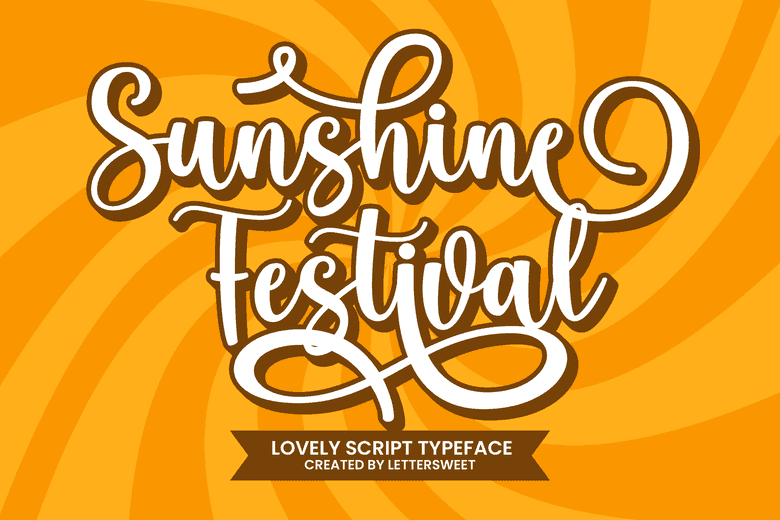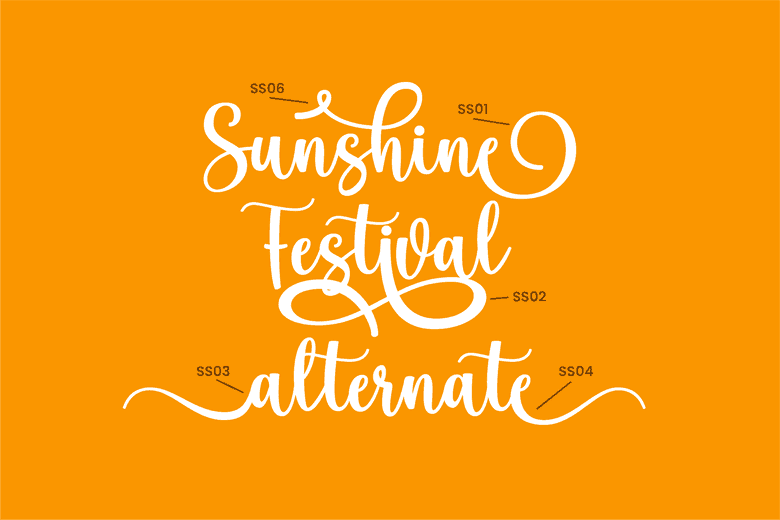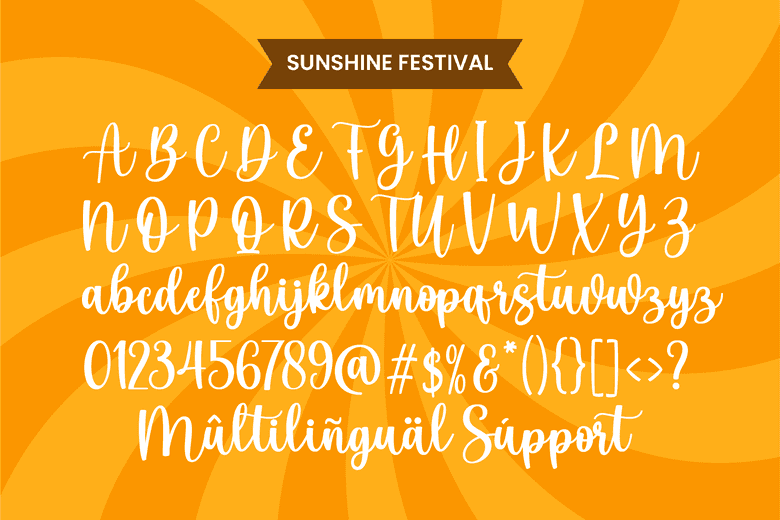
Sunshine Festival is an exquisite, romantic script font with calligraphic elements that makes for stunning invitations, thank-you cards and quotes, greeting cards as well as business cards, logos and any design requiring handwritten note.